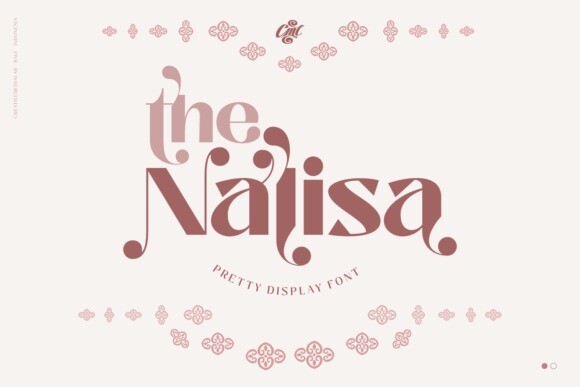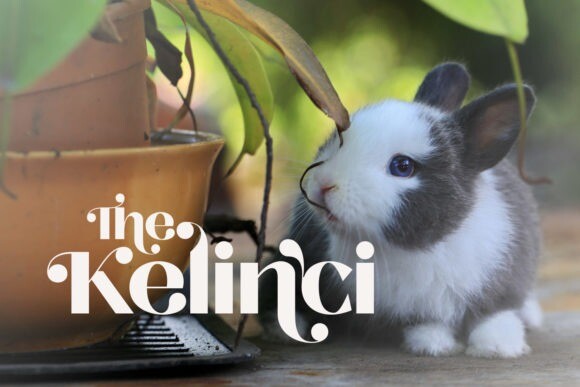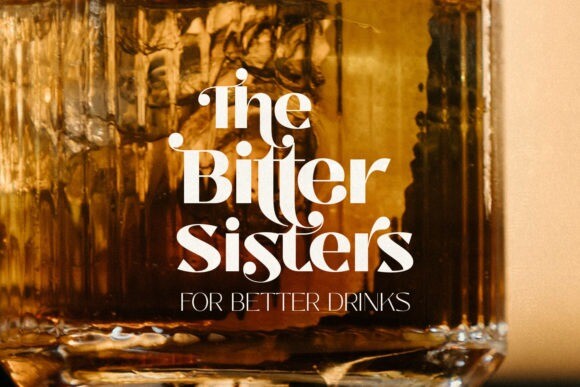
The Nalisa Font
The Nalisa is a cool, thick lettered and stylish display font. Simple but with a strong visual effect, this font will instantly make your creation more appealing than any others.